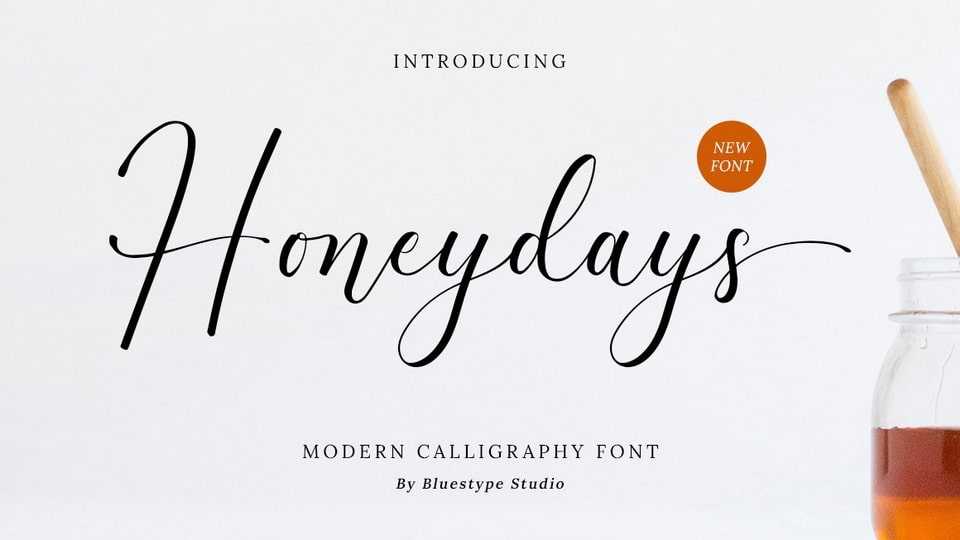
Download Honeydays font, a stunning calligraphy typeface with a natural touch and modern style. Use it for your most creative projects and see how it brings it to life.